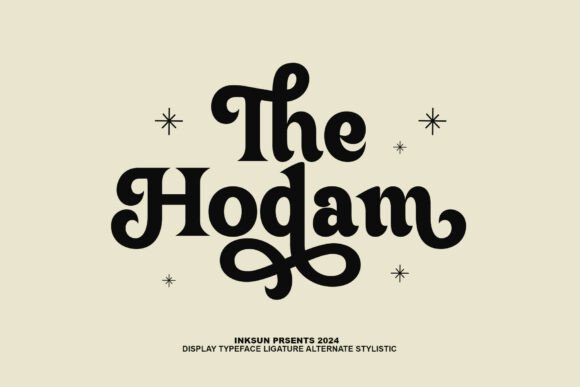
The Hodam: A Display Typeface with Retro-Modern Warmth
It was a quiet Tuesday morning—coffee still steaming, inbox mostly empty—when I opened the cover layout for a new digital magazine feature on slow living. The draft had been sitting there for three days, stalled not by content, but by tone. The headline needed to feel grounded yet inviting, familiar but freshly considered. That’s when I reached for The Hodam.
From Inksun, The Hodam is a display typeface that doesn’t shout—it leans in. Its thick, rounded letterforms carry weight without heaviness; its subtle dramatic accents (a softened wedge here, a gentle flare there) add rhythm without clutter. It’s retro-modern in the best sense: evoking mid-century optimism and analog warmth, but rendered with crisp, intentional precision. It doesn’t mimic the past—it converses with it.
A Font That Anchors Editorial Mood
In practice, The Hodam excels where voice matters most: blog headers, ebook titles, newsletter banners, and chapter openers. I tested it across several real projects—a printable coaching workbook, a seasonal recipe ebook, and a quarterly digital magazine feature—and each time, it quietly elevated the mood without demanding attention. It’s expressive enough to signal personality, but restrained enough to avoid theatricality.
For the coaching workbook, I used The Hodam for section headers (“Pause,” “Reflect,” “Begin Again”) paired with a warm serif for body text. The contrast worked beautifully: the display font gave each moment visual breathing room, while the serif kept reflection legible and intimate. On screen and in PDF export, the rounded forms held clarity even at 28pt on mobile—no pixelation, no awkward thinning. Print tests on uncoated stock confirmed its generosity: ink spread gently into the curves, enhancing rather than blurring its character.
Where It Shines—and Where It Steps Back
The Hodam is not a workhorse. It’s not meant for dense paragraphs, tight captions, or legal disclaimers. Its charm lives in intentionality—not ubiquity. As a display font, it thrives in short bursts: pull quotes with generous leading, title pages with ample negative space, cover graphics where one phrase carries the entire visual contract with the reader.
I tried using it for a subhead in a lifestyle blog post—“How to Make Your Morning Ritual Feel Like a Ceremony”—and it landed perfectly: confident, unhurried, human. But when I dropped it into a 14pt caption beneath an image, the roundness began to feel soft at the edges, losing distinction against busy backgrounds. That’s not a flaw—it’s alignment. The Hodam asks for context, and rewards thoughtful placement.
Pairing With Purpose
Like any strong editorial voice, The Hodam gains depth through contrast. I’ve found it pairs especially well with understated serifs—think a gentle Garamond or a contemporary Tisa—where the serif’s quiet authority balances The Hodam’s expressive curves. For digital-first projects like newsletters or social media graphics, a clean, neutral sans serif (like Inter or Manrope) offers excellent counterpoint: functional navigation and captions, with The Hodam reserved for moments of emphasis.
What stood out during testing was how easily it avoided cliché. Unlike many retro-inspired display fonts, The Hodam doesn’t rely on exaggerated quirks or forced nostalgia. There are no forced swashes, no arbitrary alternates that distract from meaning. Instead, it offers subtle ligatures and stylistic sets—just enough to refine rhythm without complicating workflow. And yes, it includes full Latin support, basic OpenType features, and both OTF and WOFF2 files—practical details that matter when building templates for clients or launching a paid printable collection.
Real Use Across Real Formats
In a wedding guide PDF, The Hodam became the quiet heartbeat behind every major divider: “The First Look,” “Vows & Values,” “Your First Dance.” Its soft geometry felt personal—not performative—perfect for couples seeking authenticity over ornament. In a digital magazine layout, it anchored full-bleed title spreads without competing with photography. And in a creator newsletter header, it transformed a simple “This Week” into something warm and deliberate—less bulletin, more invitation.
One unexpected success? A set of printable planner stickers. Because The Hodam renders cleanly at small sizes (down to ~16pt with generous spacing), it worked beautifully for themed headers like “Weekly Intentions” or “Gratitude Space”—adding visual consistency without sacrificing legibility on tablet screens or printed inserts.
There’s a quiet confidence to The Hodam. It doesn’t chase trends. It doesn’t try to be everything. It simply offers a distinct, readable, emotionally resonant voice—when you need one. And in today’s landscape, where so much content competes for attention through volume or velocity, choosing a typeface like The Hodam feels like a small, meaningful act of editorial care.